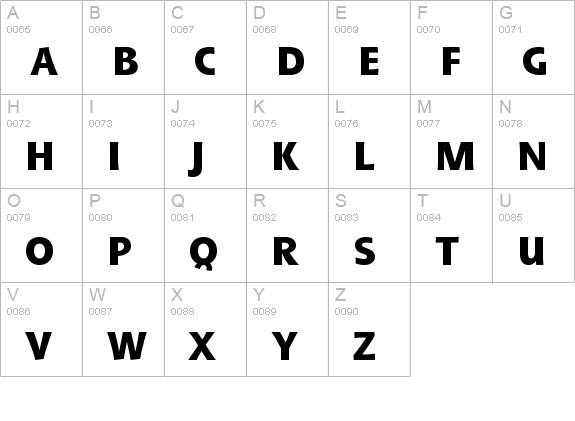
Shannon Std Extra Bold Font Details
Shannon Std Extra Bold is a strong, high-contrast variant in the Shannon typeface family \xE2\x80\x94 well suited to headlines, attention-grabbing titles, and strong calls-to-action.
Shannon Std Extra Bold font is a stunning and eye-catching typeface that exudes strength and confidence. With its bold and powerful letterforms, this font is perfect for making a bold statement in any design project. Whether you are designing a poster, logo, or headline, Shannon Std Extra Bold is sure to grab attention and leave a lasting impression. This font is not only visually striking, but it also offers excellent legibility and readability. Its clean lines and well-defined shapes ensure that your message is clearly communicated to your audience. The thick strokes and generous letter spacing make this font easily readable even at smaller sizes. One of the best things about Shannon Std Extra Bold font is that it is freely available to download at FontsMarket.com. This means that you can incorporate this stunning typeface into your projects without any additional cost. Whether you are a professional designer or a creative enthusiast, having access to high-quality fonts for free is a fantastic opportunity to enhance your work. So, if you are looking for a bold and powerful typeface that will make your designs stand out, look no further than Shannon Std Extra Bold font. With its striking appearance, excellent legibility, and the convenience of being freely available, this font is a must-have for any designer. Download it today from FontsMarket.com and take your designs to new heights.